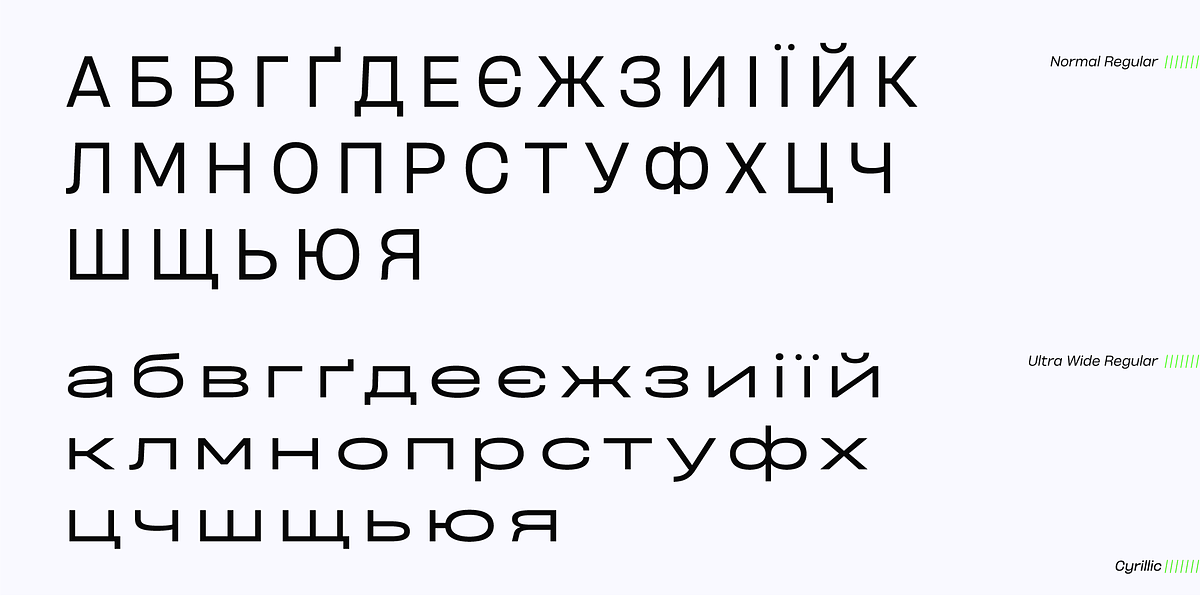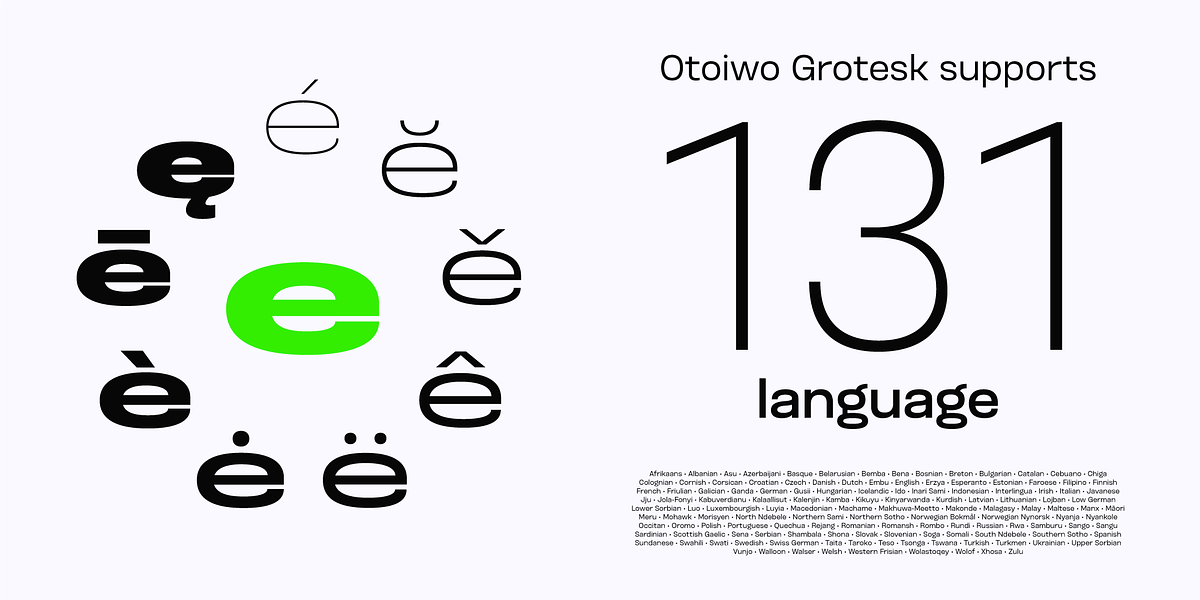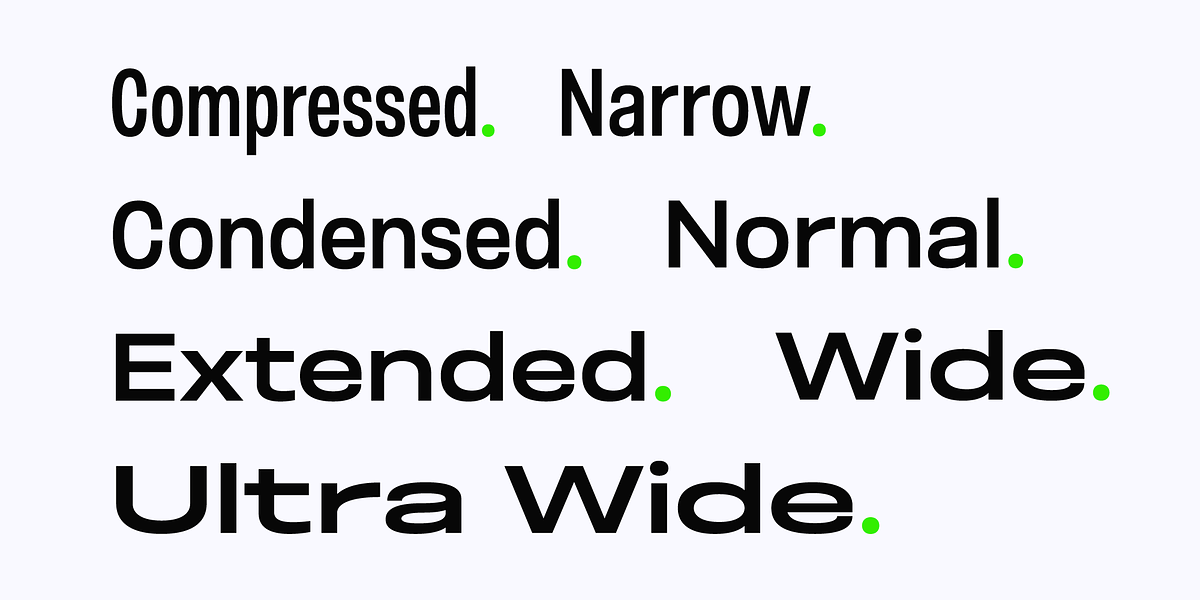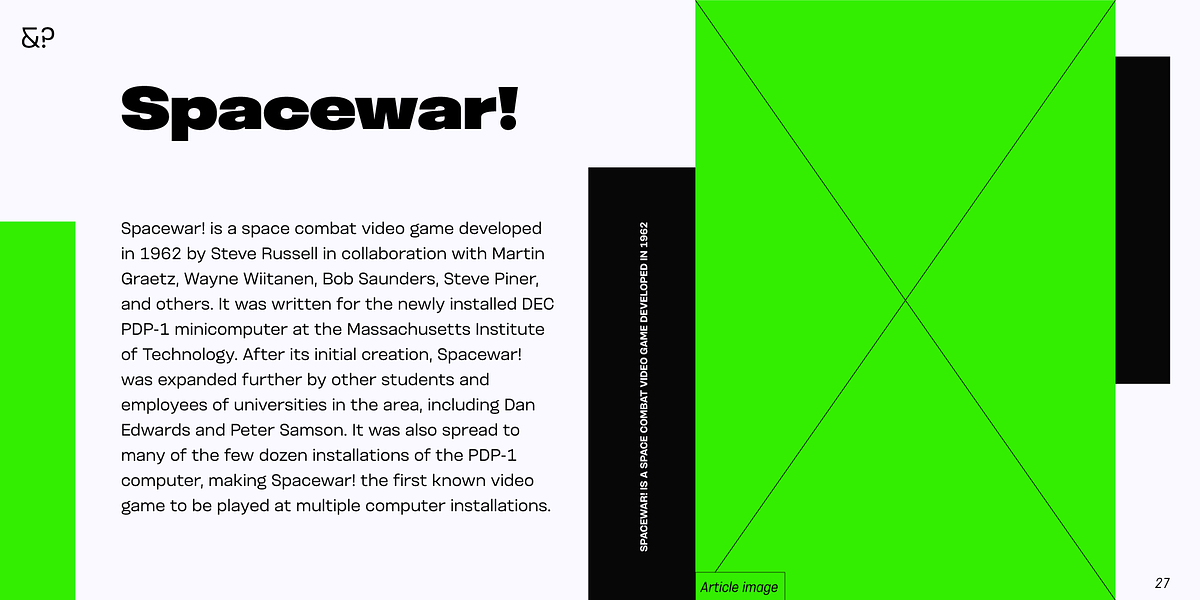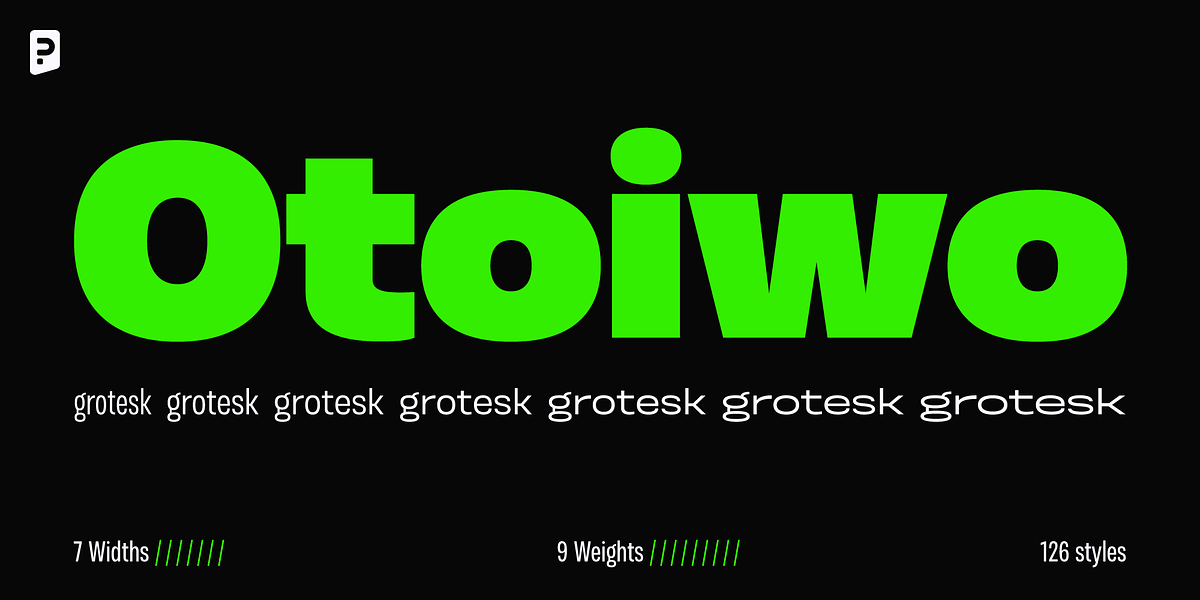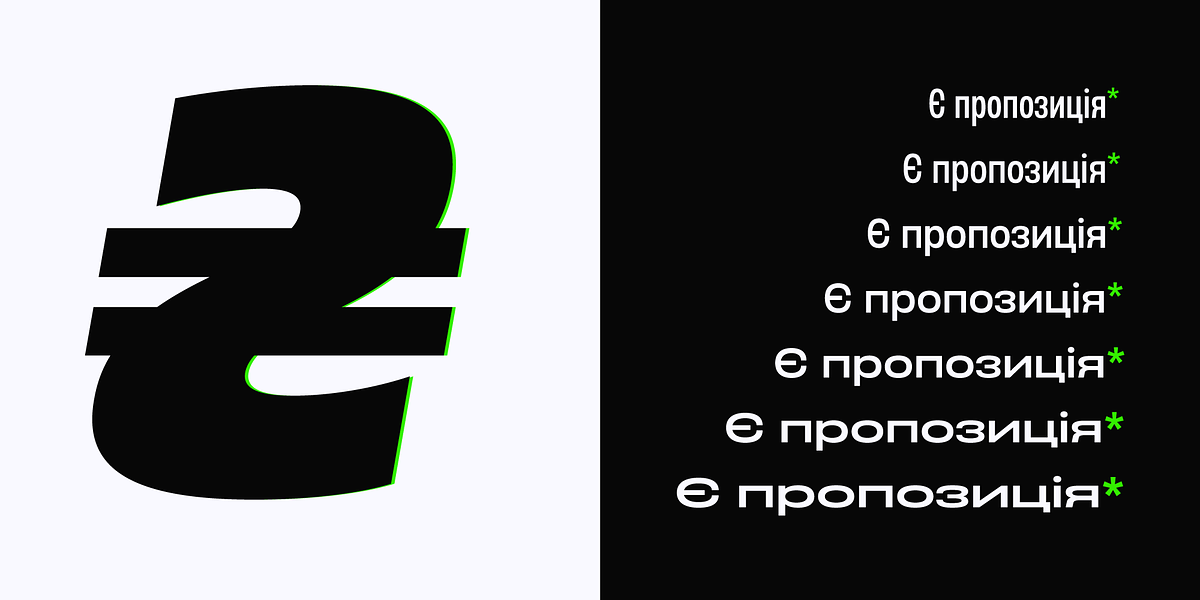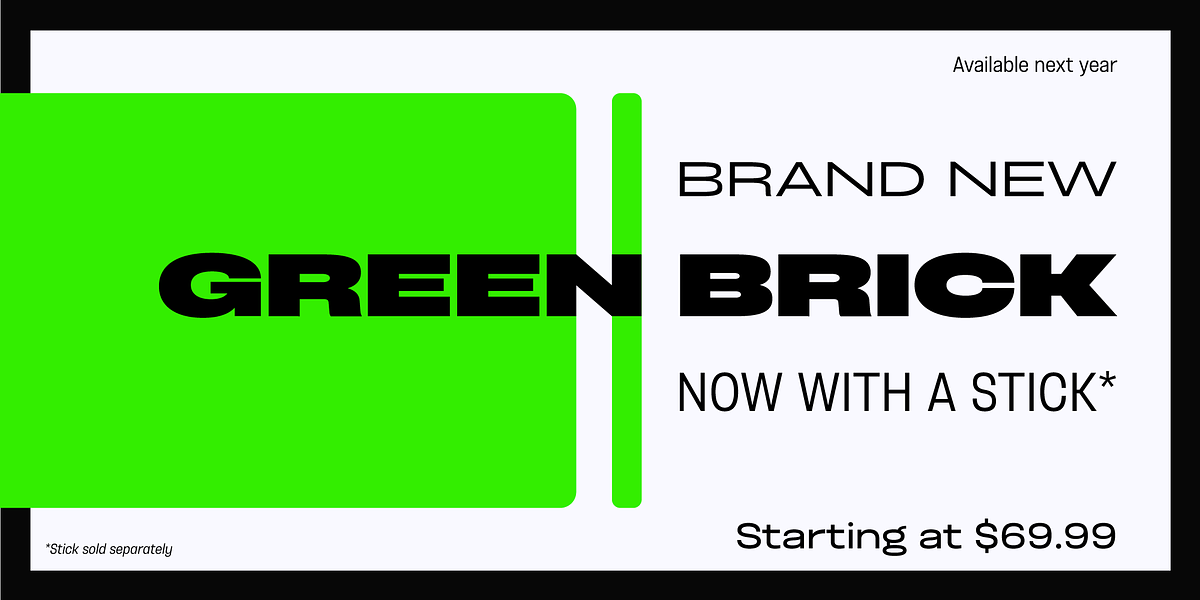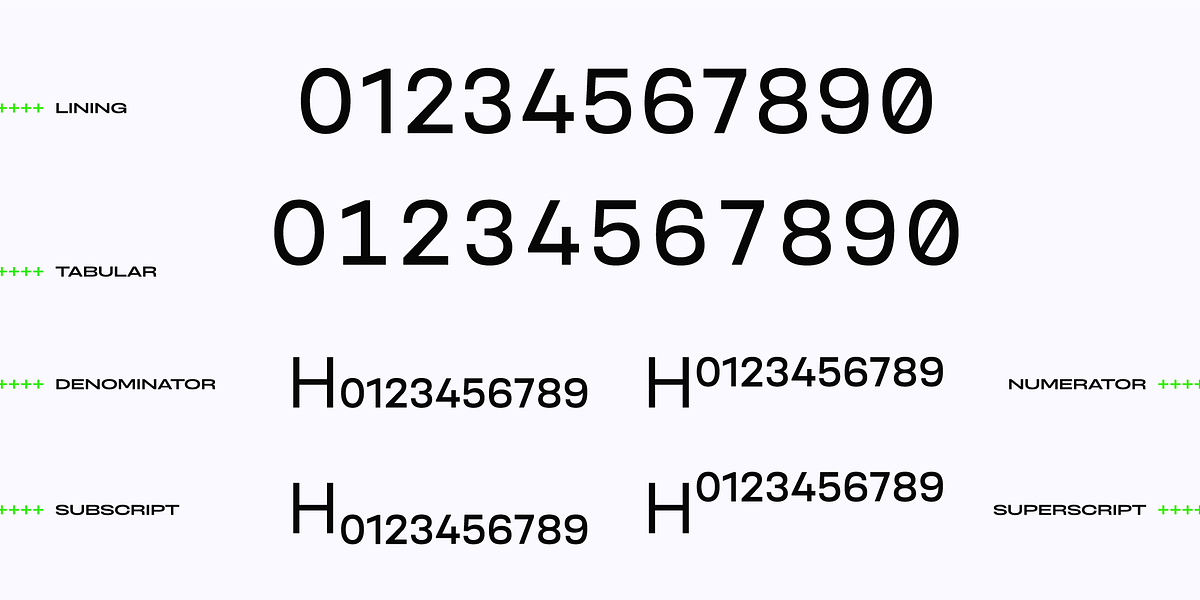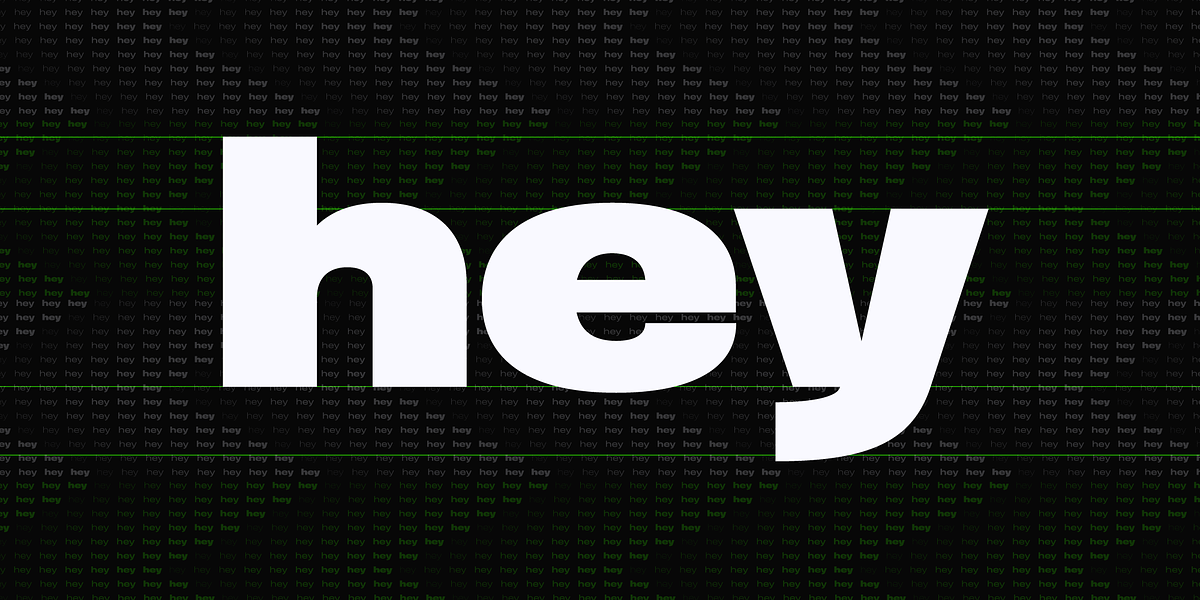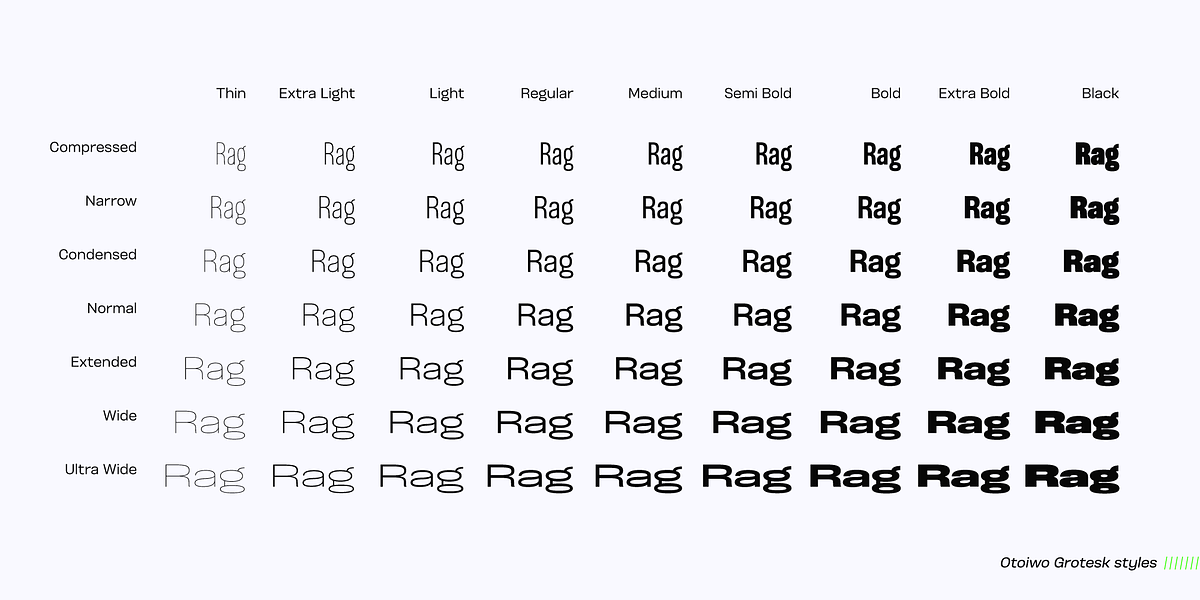
Otoiwo Grotesk Condensed
Otoiwo Grotesk is a geometric sans-serif typeface characterized by its versatility and closed aperture. It boasts an impressive range of 126 styles spread across 7 widths, each containing 9 weights with corresponding italics. The font's personality ranges from neutral in Normal and Condensed widths to more flavorful in Compressed and Ultra Wide variations. Its extensive language support, encompassing Cyrillic and a total of 131 languages, makes it well-suited for international branding efforts.